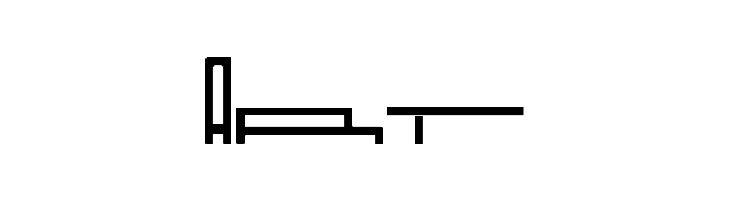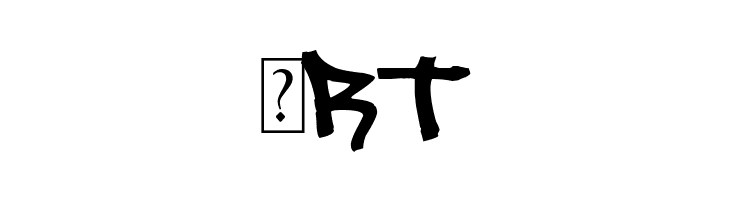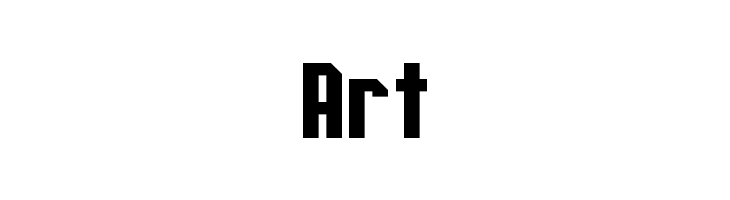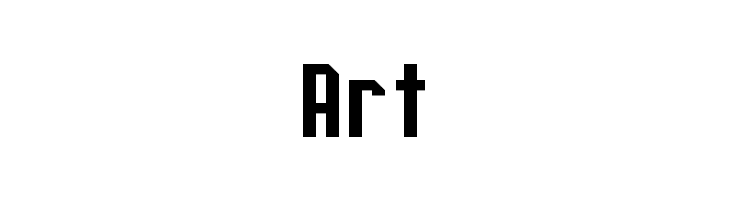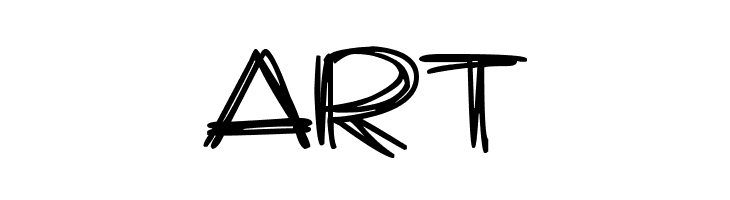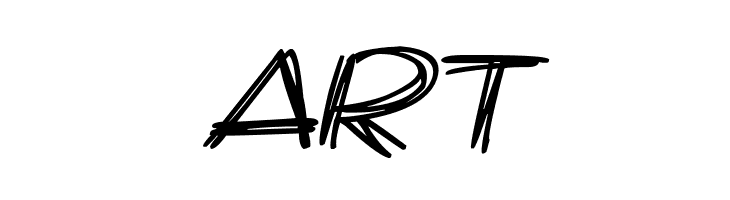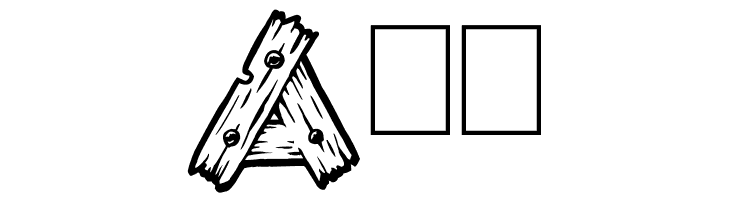
A bold, geometric font with sharp angles and a modern industrial style.
A bold, geometric font with strong, angular lines and a blocky appearance.
A bold, graffiti-inspired font with dynamic and angular strokes.
A geometric, angular font with a modern, futuristic aesthetic.
A bold, geometric font with wide, square-shaped characters and a modern aesthetic.
A bold, hand-drawn font with a rugged, adventurous style and distressed texture.
A rugged, textured font with a natural, adventurous feel, resembling wood or bark.
A playful, bold font with rounded strokes and whimsical shapes.